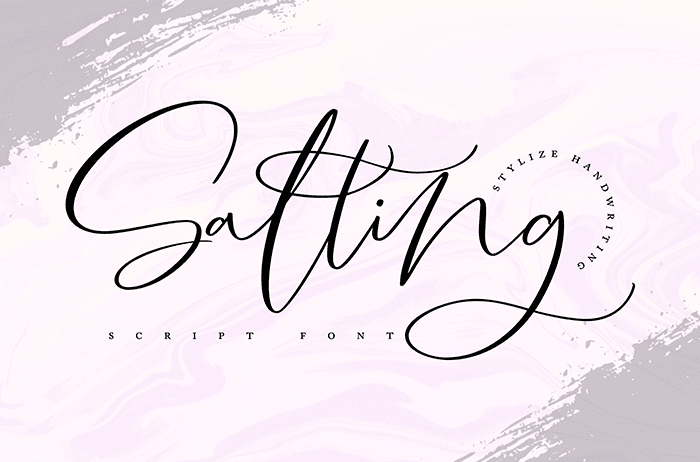
Salting Script Font
Salting Script Font feels equally relaxed and elegant. It looks gorgeous on wedding invitations, thank you cards, quotes, greeting cards, logos, business cards, and every other design which needs a handwritten touch. Thanks to Vunira Studio for sharing this font! Take a look at this portfolio for more of his stunning fonts.